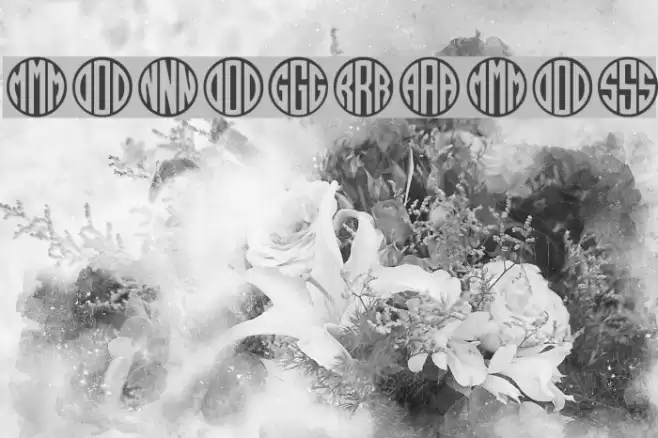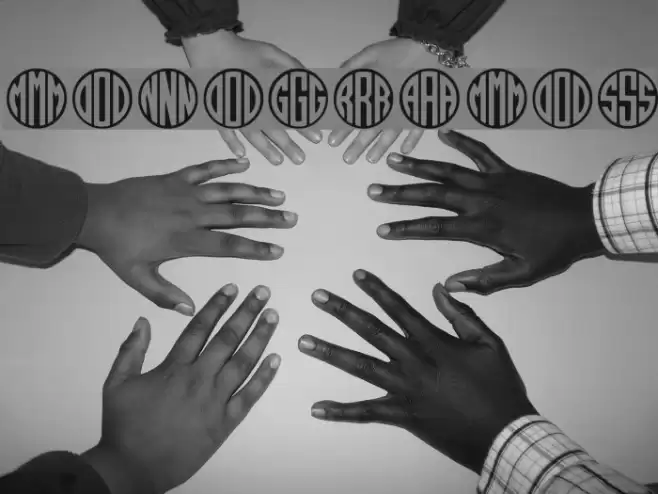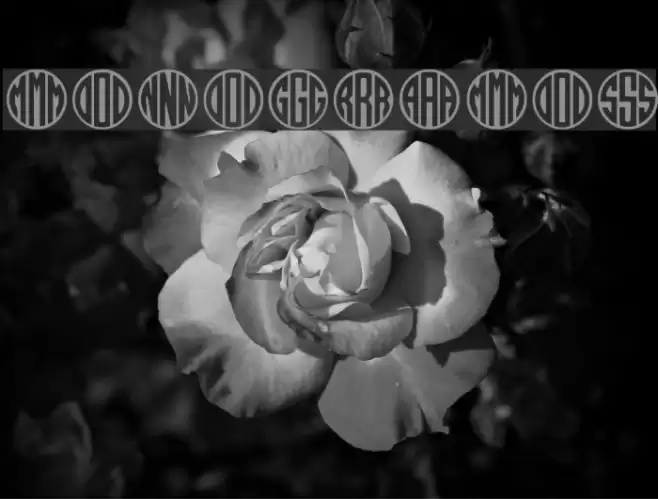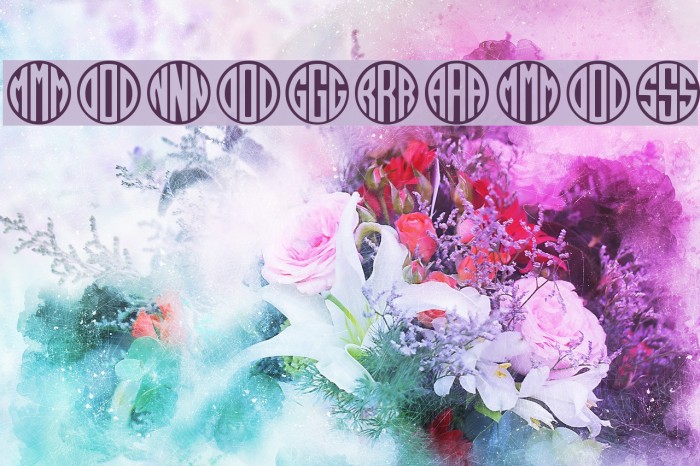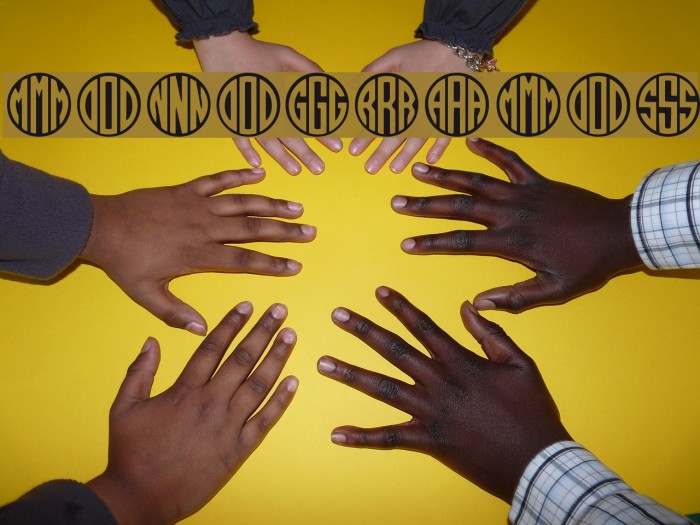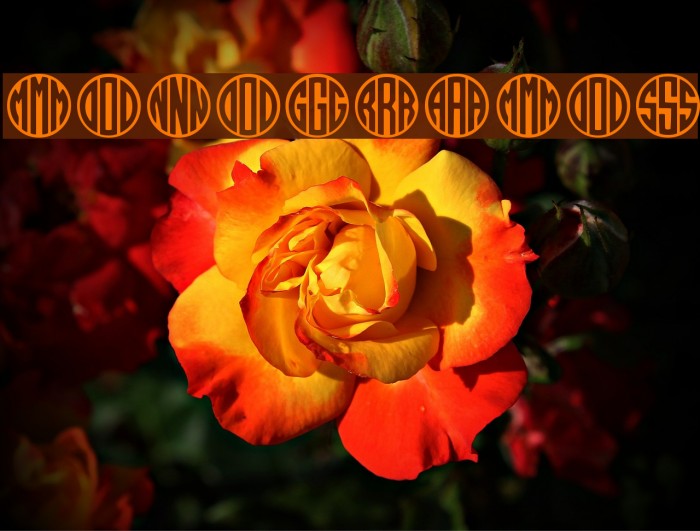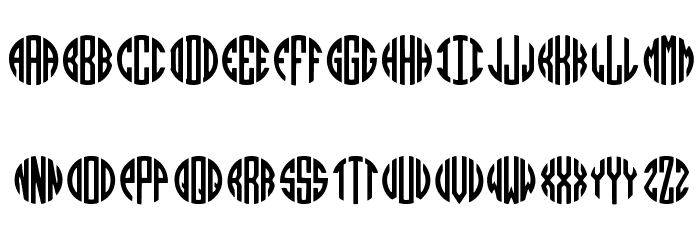
MONOGRAMOS Font
MONOGRAMOS Description
This font features a bold, geometric style with each character enclosed within a circular form, creating a monogram-like appearance. The letters are uppercase and designed with a consistent width, giving them a uniform look. The strokes are thick, contributing to a high contrast between the letterforms and the negative space. This design is reminiscent of vintage monograms, often used for personalization or branding. The font's unique style makes it stand out, with each character being easily recognizable due to its distinct shape and enclosed form.
A bold, geometric font with characters enclosed in circles, ideal for monograms from Gothic fonts.
- Proposed Projects: Perfect for creating personalized monograms, logos, branding materials, or decorative elements in design projects.
- Overall Style: Vintage
- Use Case: Logos, Monograms, Decorative elements